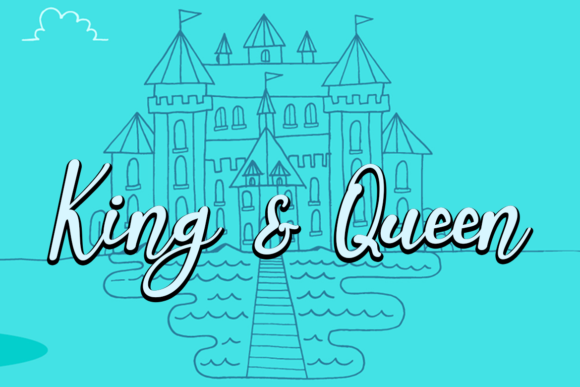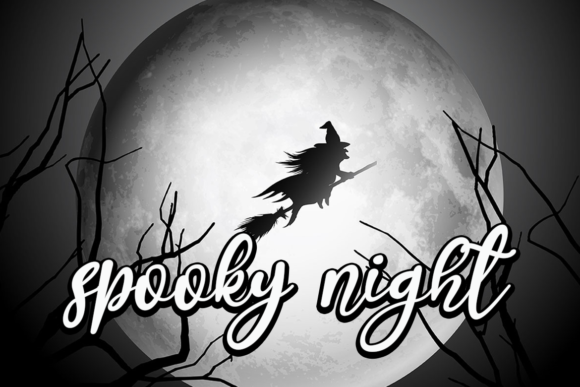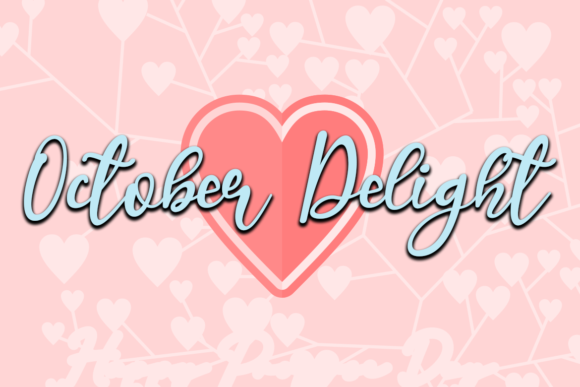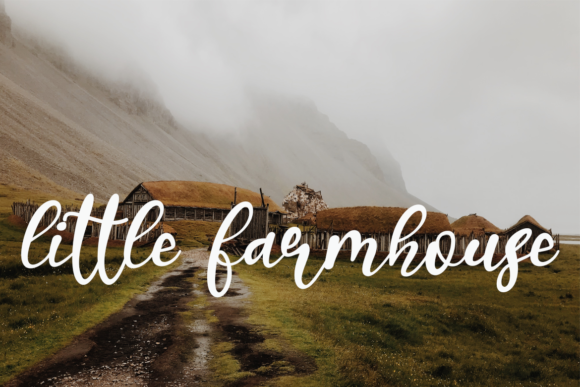
Kakarotto Font
About Kakarotto Font
Kakarotto is a flowing handwritten font, described by an elegant touch, perfect for your favorite projects. Fall in love with its bouncy and joyful style and use it to create lovely designs!